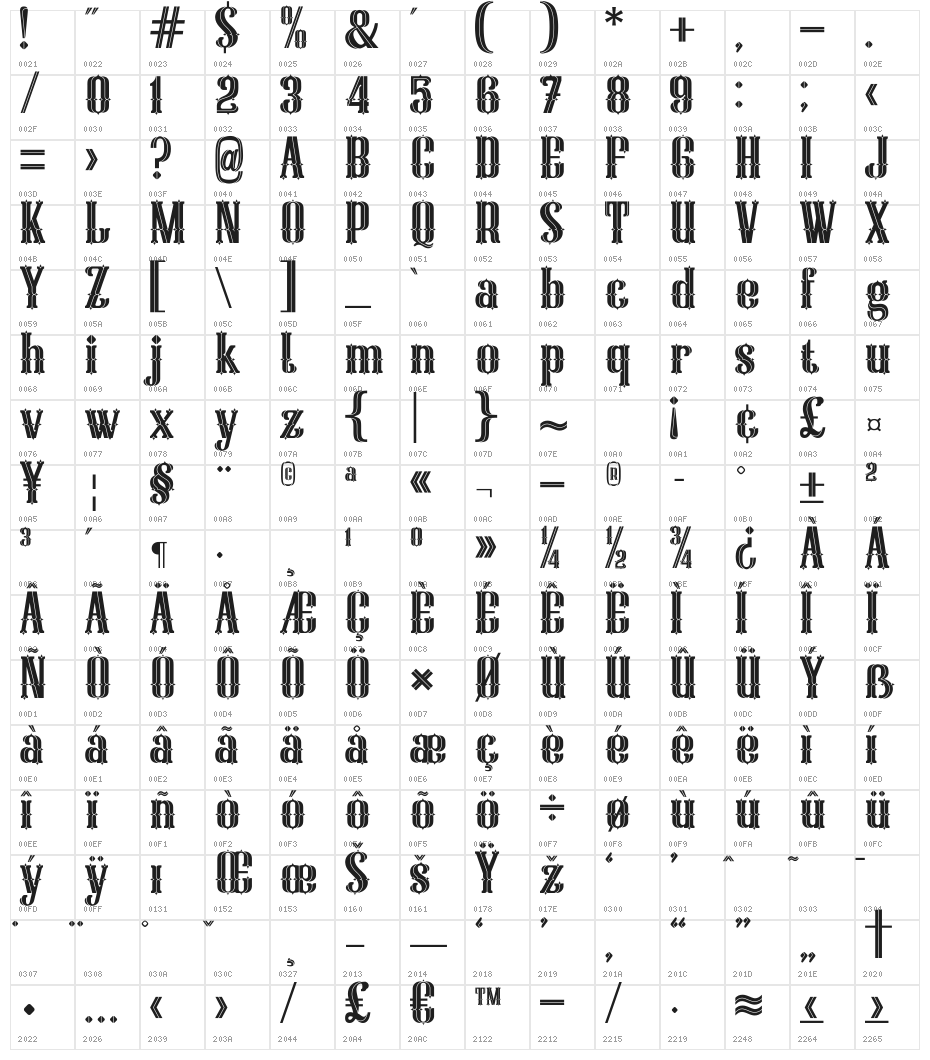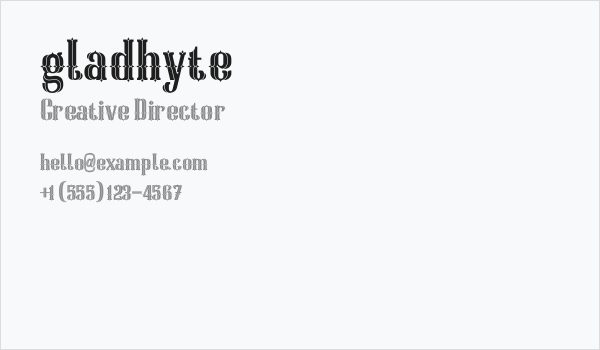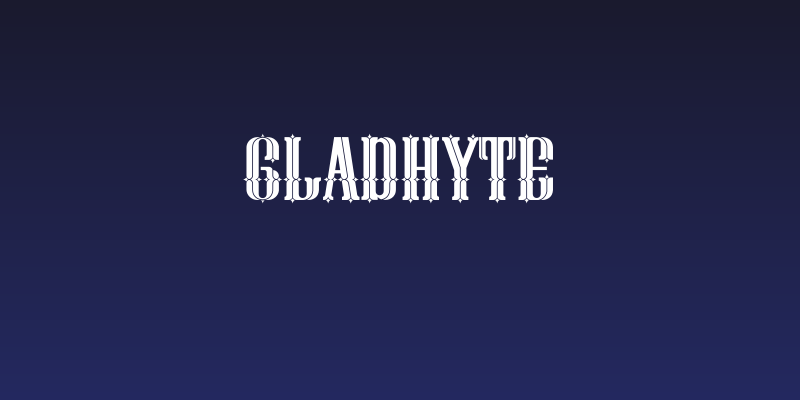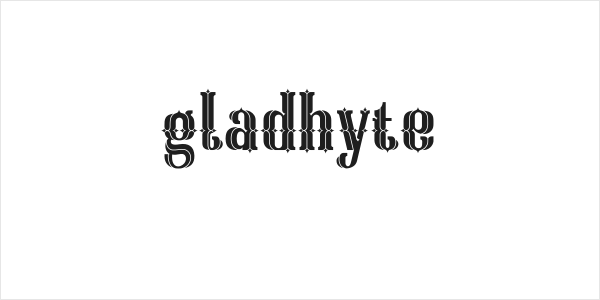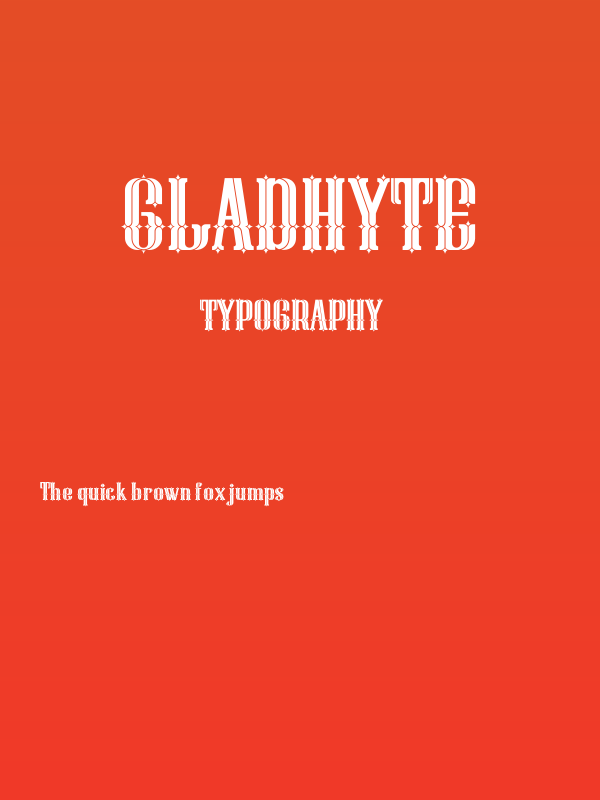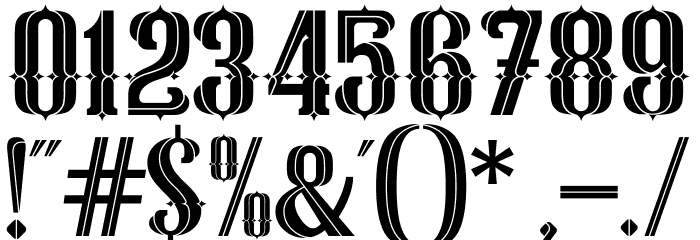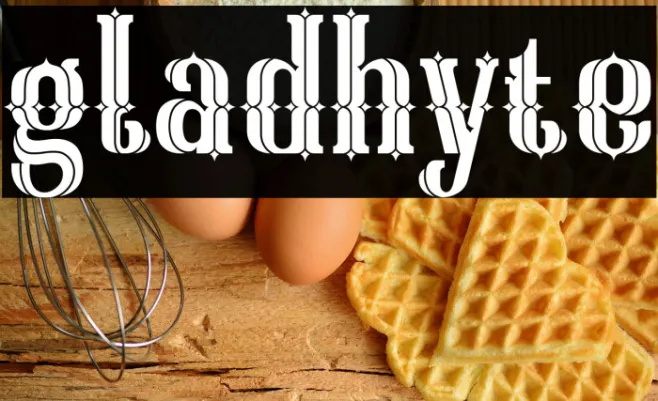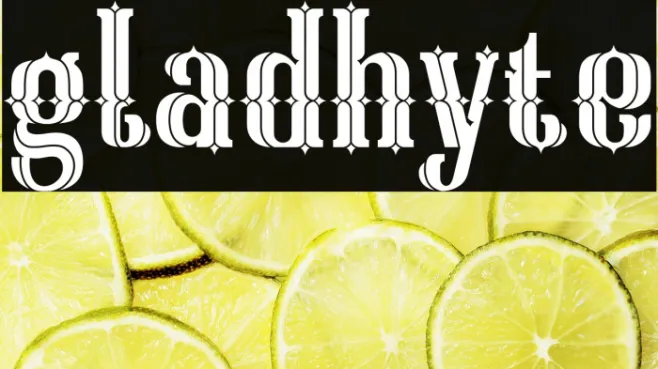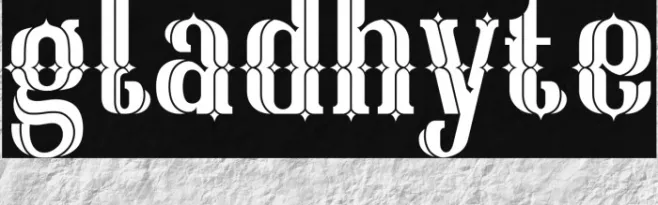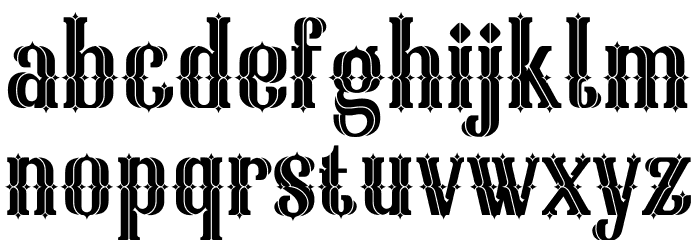
gladhyte Font
gladhyte Description
This font features a bold and decorative style with intricate detailing that gives it a unique and eye-catching appearance. The characters are adorned with small diamond-shaped embellishments at the ends of the strokes, adding a touch of elegance and sophistication. The uppercase letters are tall and commanding, while the lowercase letters maintain a consistent style, offering a harmonious blend of formality and creativity. The numbers and special characters are equally ornate, making this font suitable for projects that require a distinctive and artistic flair.
| Proposed Projects | Ideal for branding, poster design, album covers, and any project requiring a distinctive and artistic typeface. |